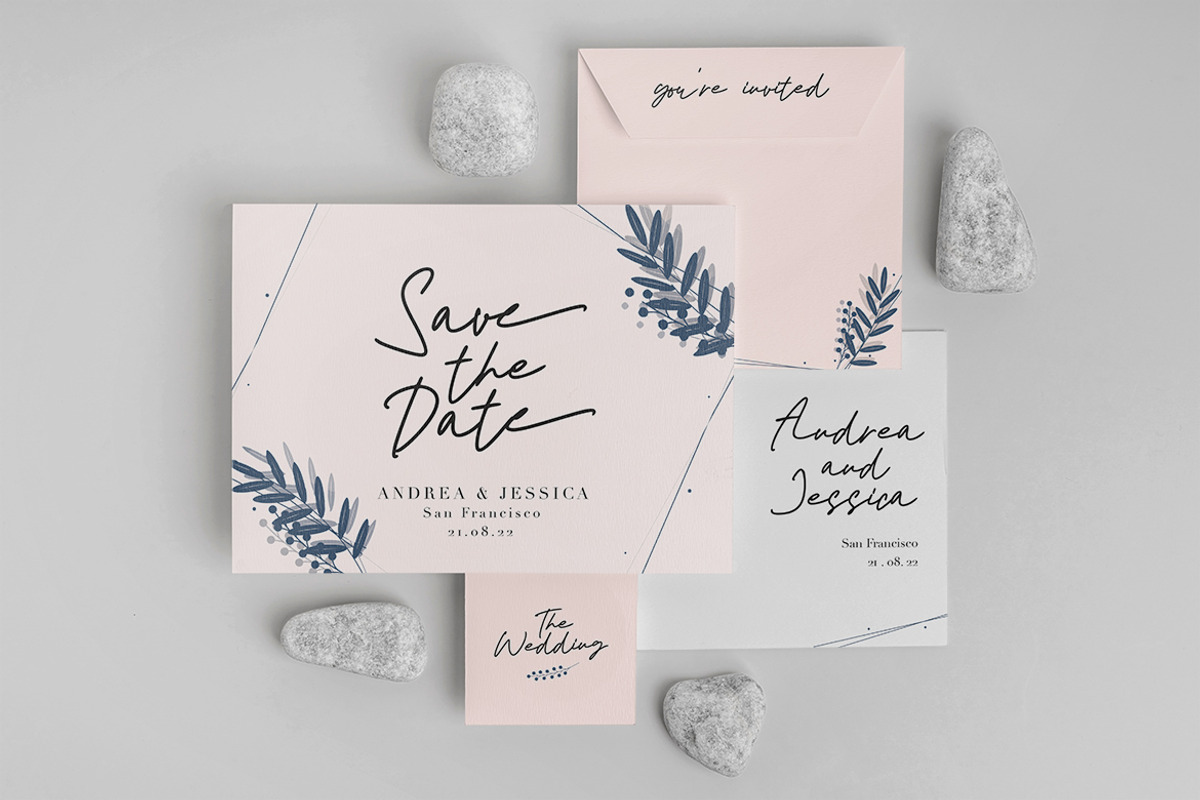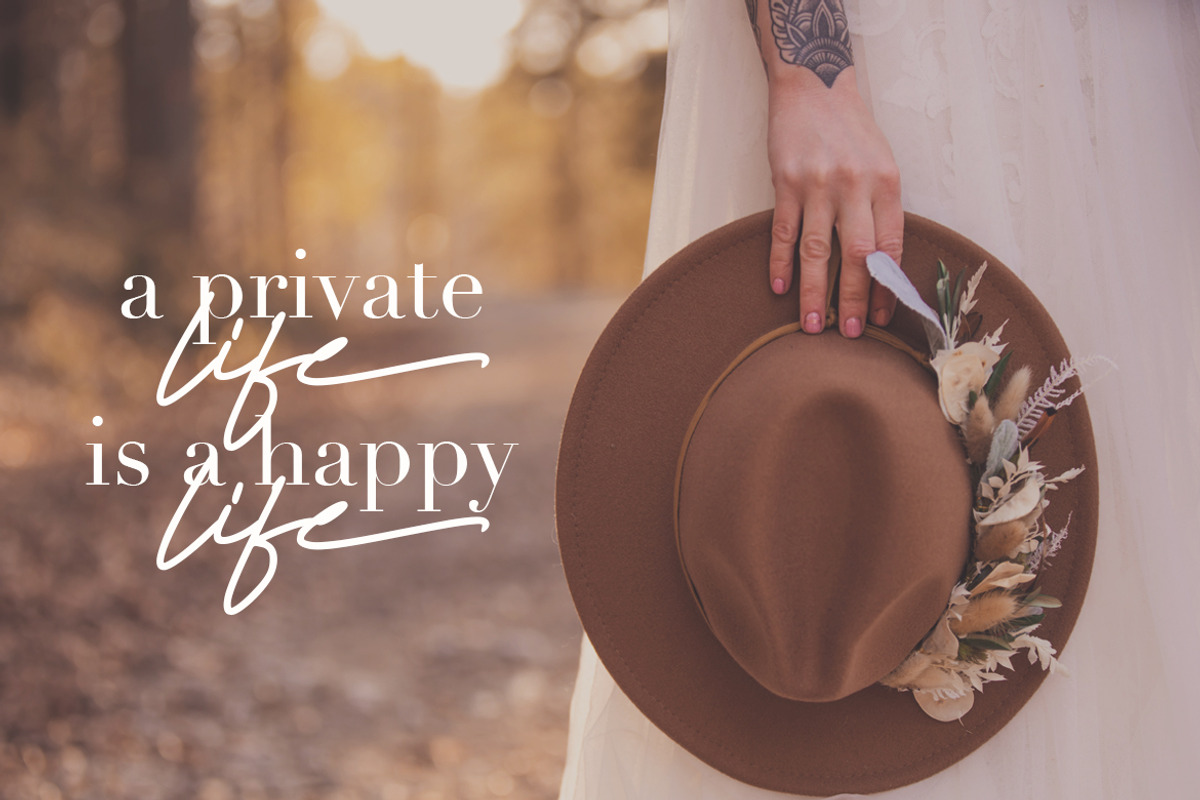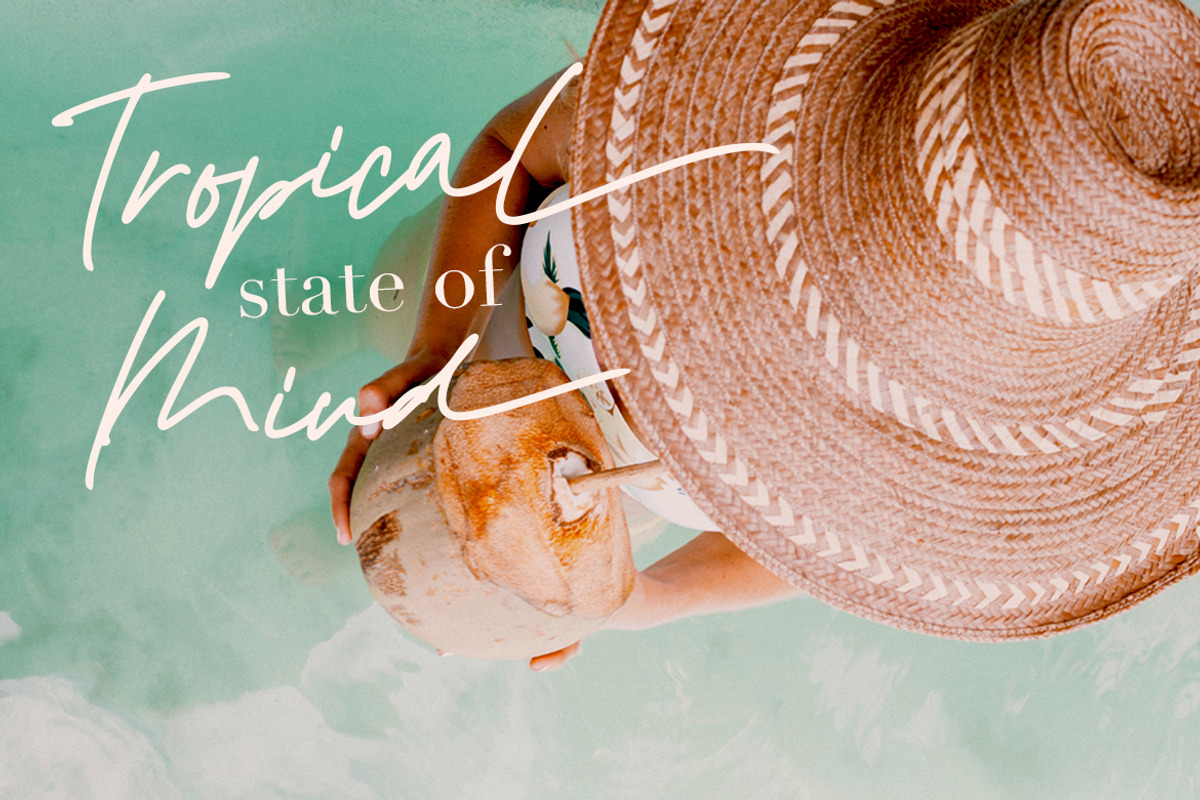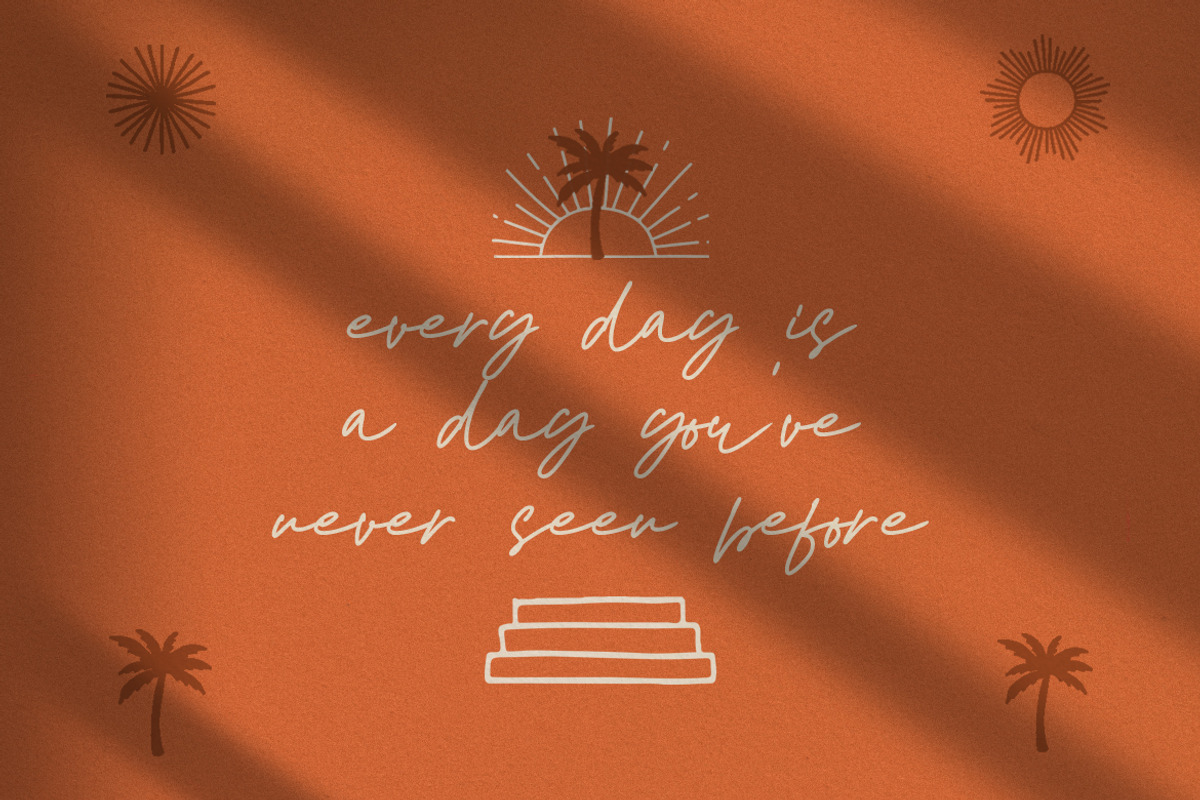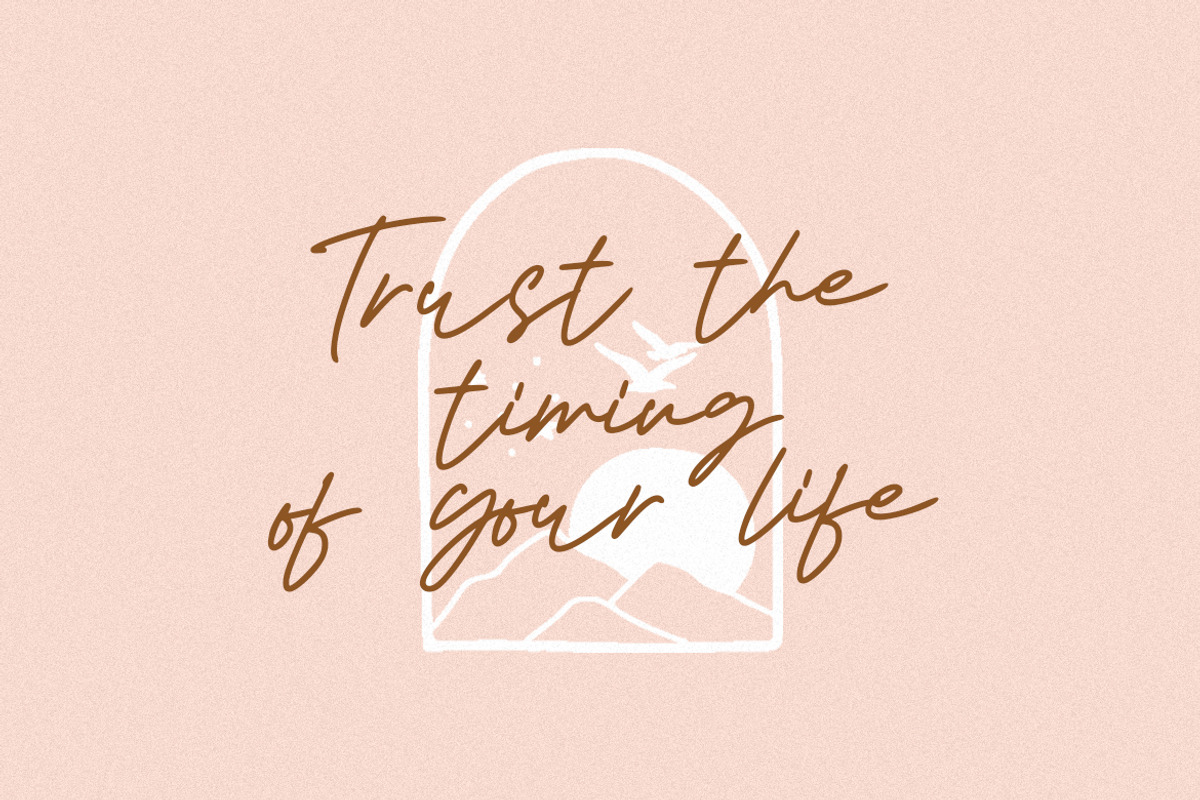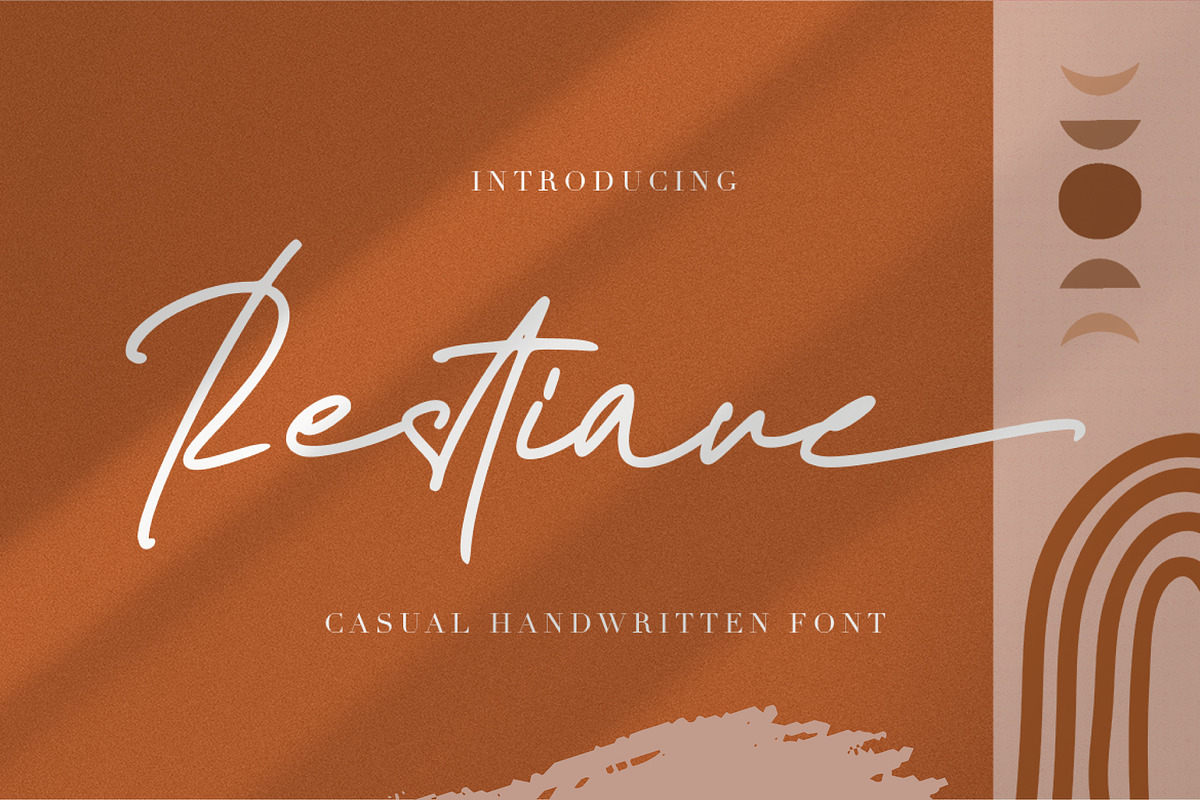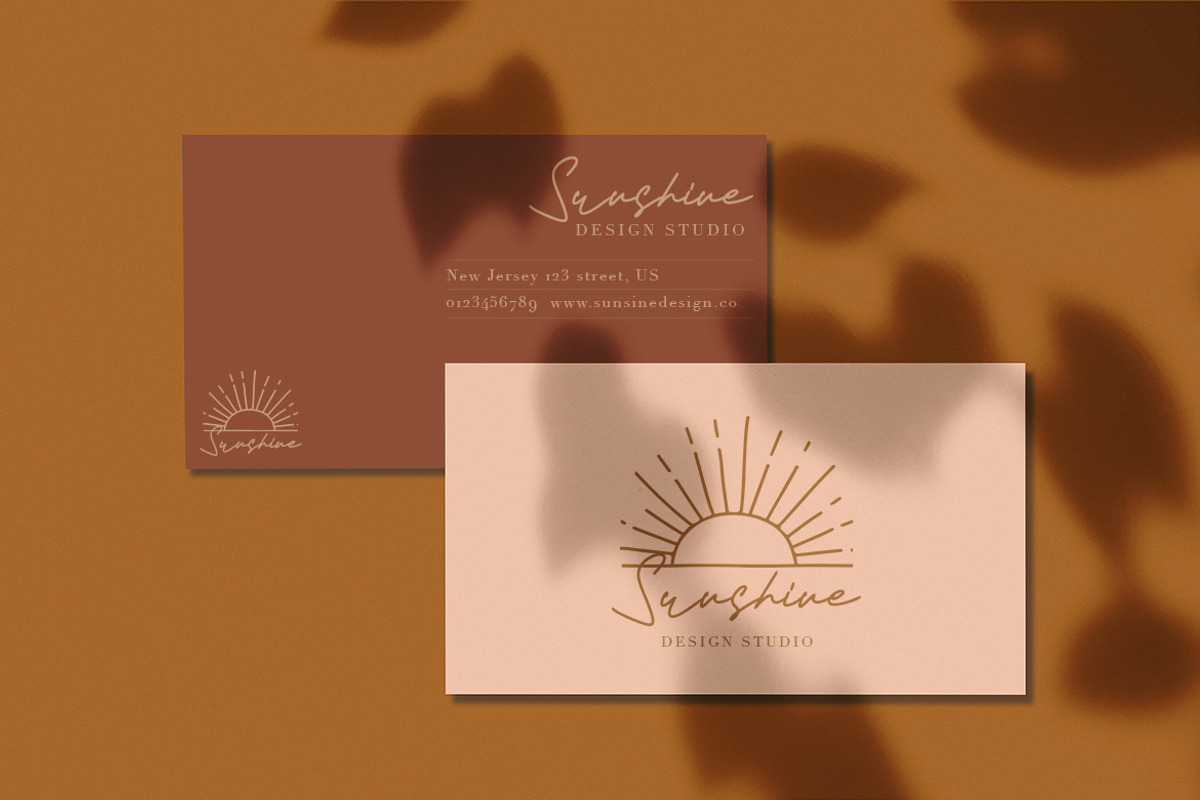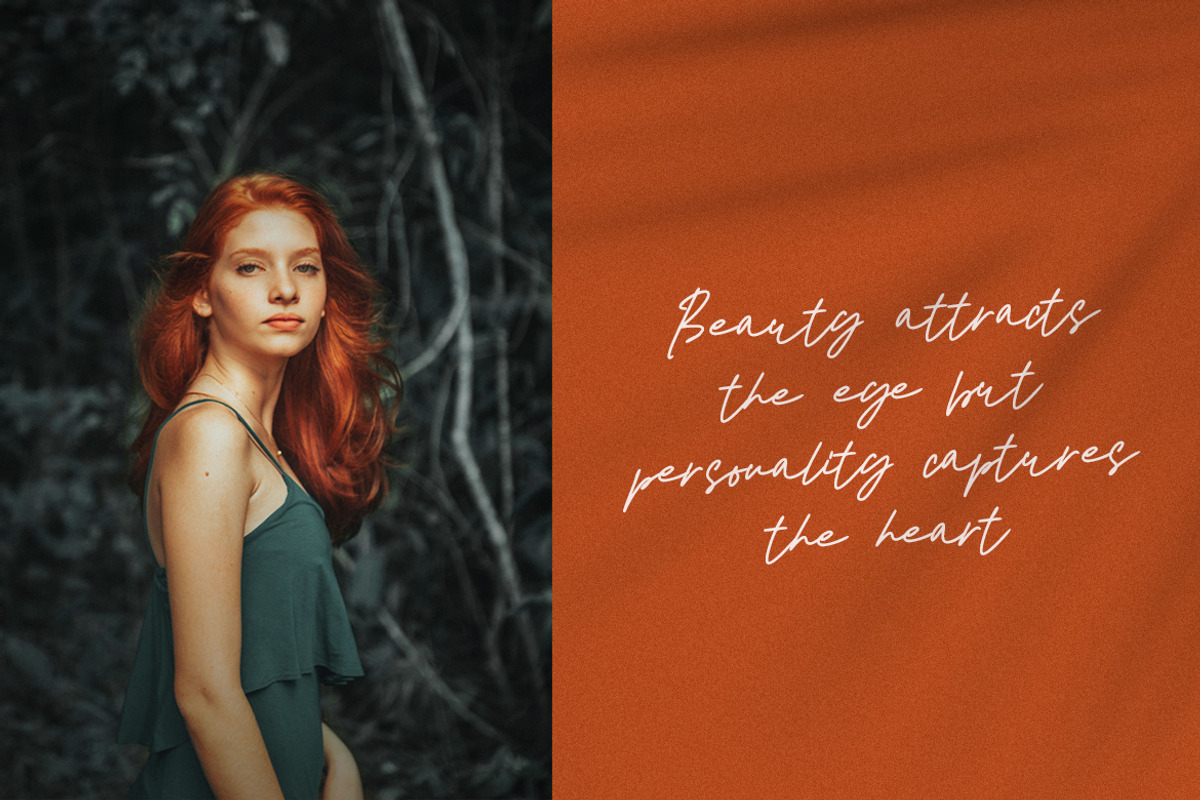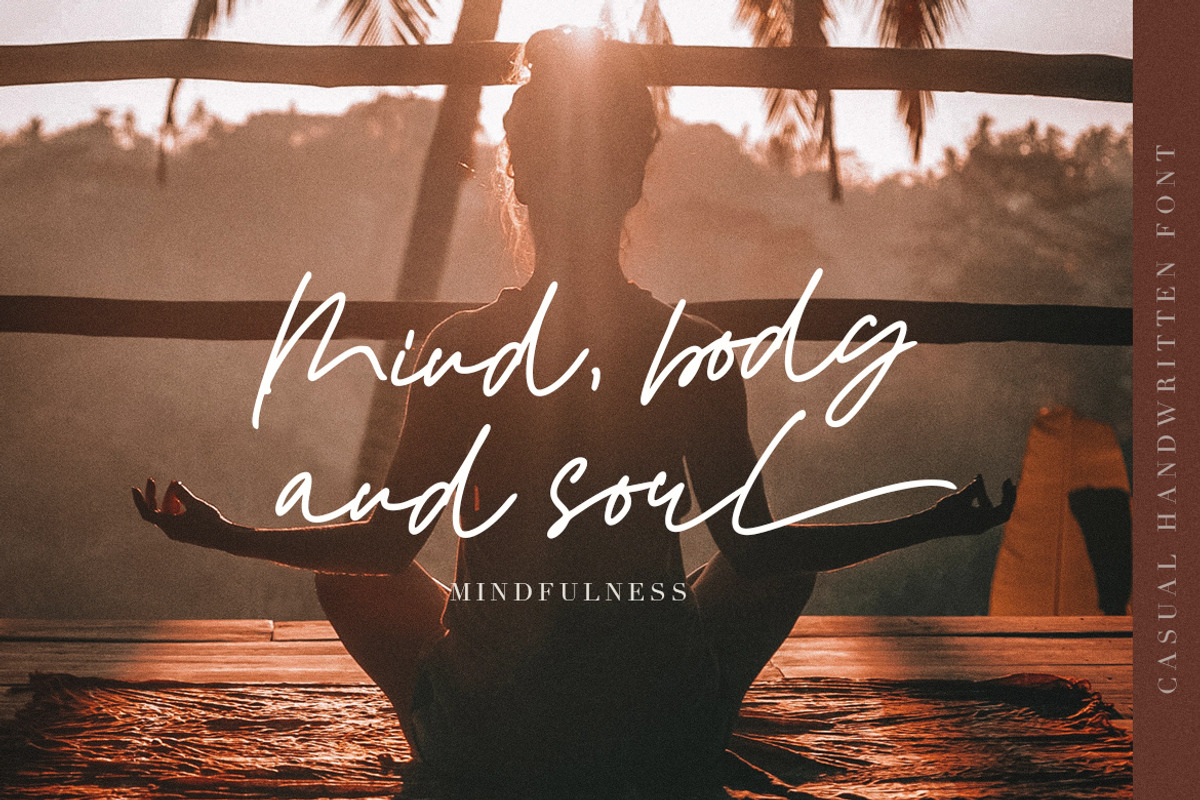
Restiane
Restiane is perfect for many different projects such as logos & branding, invitation, stationery, wedding designs, social media posts, advertisements, product packaging, product designs, label, photography, watermark, special events, or anything.
- Numerals and Punctuations (OpenType Standard)
- Many of alternates
- ligature